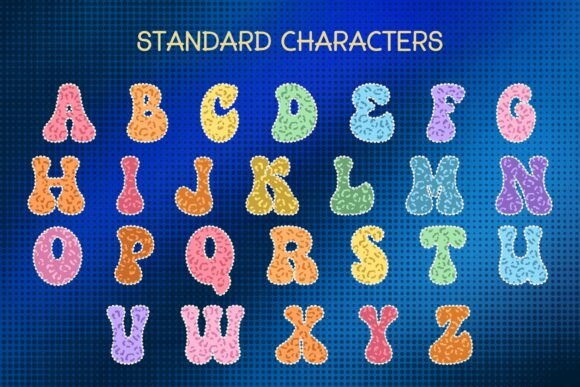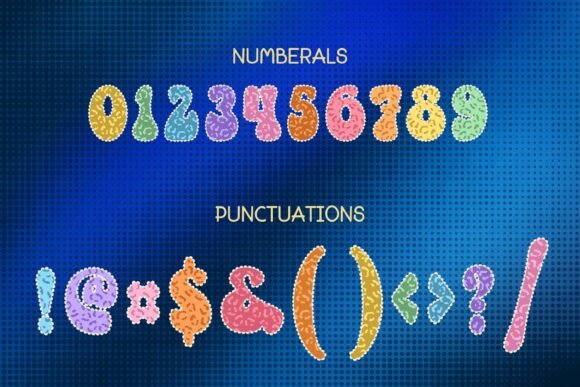
Introduction to Leopard Dream Font
Sweet, playful, and colorful.
Leopard Dream is a fun color font featuring adorable pastel leopard-inspired patterns with a soft fluffy outline This unique alphabet includes uppercase letters, numbers, and punctuation, making it perfect for kids’ designs, nursery decor, birthday invitations, stickers, sublimation projects, Cricut crafts, t-shirts, mugs, scrapbooking, and digital creations.
Key Features of Leopard Dream Font